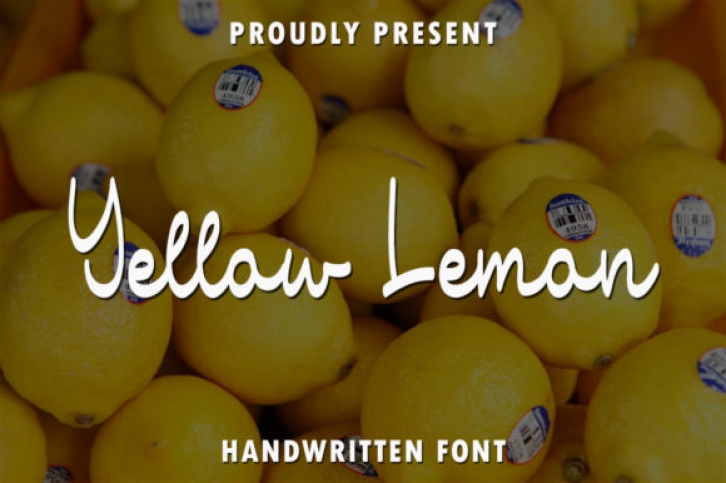
Yellow Lemon is a sweet and cursive handwritten font. It has beautiful and round letters and is the ideal choice for your personalized designs. Add it confidently and you will love the outcome.